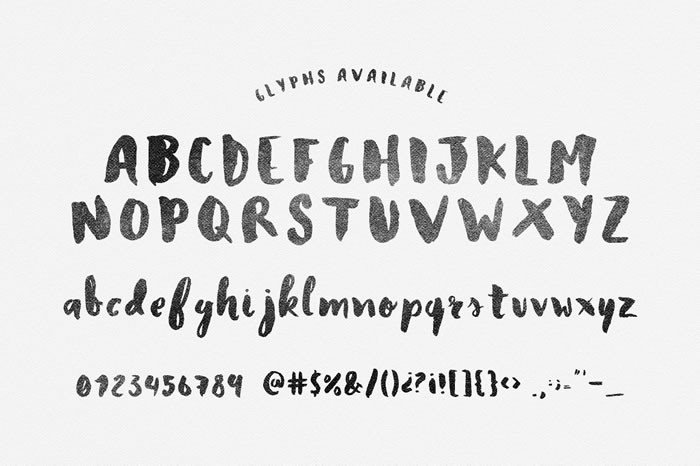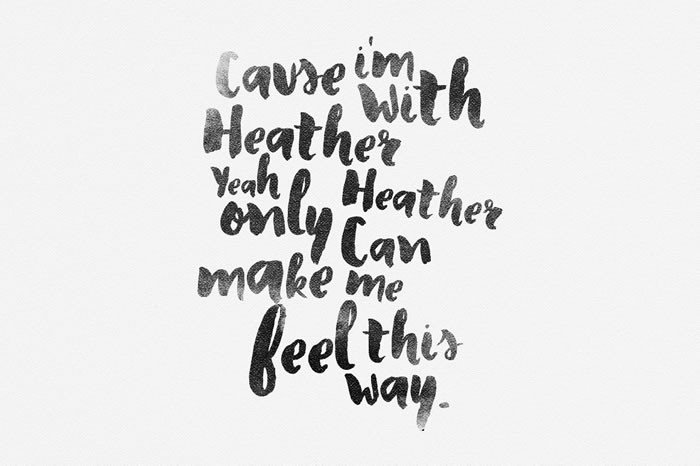
Discover the Charm of Heather Font: A Handmade Typeface for Creative Projects
Are you tired of using generic, overused fonts in your designs? Look no further than Heather Font, a beautiful handmade typeface that adds a touch of elegance and sophistication to any project. With its natural, effortless charm, Heather Font is perfect for a wide range of applications, from logos and invitations to posters, quotes, letterheads, and more.
What Makes Heather Font Special?
Heather Font is a unique, handmade typeface that stands out from the crowd. Its creator has poured their heart and soul into crafting a font that is both visually appealing and highly versatile. With a ton of glyphs included, Heather Font offers endless possibilities for creative expression.
Whether you’re a designer, crafter, or DIY enthusiast, Heather Font is an excellent choice for any project that requires a personal touch. Its handmade nature gives it a warm, organic feel that’s perfect for:
- Logos: Create a lasting impression with a custom logo that showcases your brand’s personality.
- Invitations: Set the tone for a special occasion with beautifully designed invitations that reflect your style.
- Posters: Grab attention with eye-catching posters that feature Heather Font’s elegant, cursive script.
- Quotes: Add a touch of inspiration to your designs with beautifully typeset quotes that showcase Heather Font’s charm.
- Letterheads: Elevate your business correspondence with custom letterheads that feature Heather Font’s sophisticated style.
- Birthdays and more: Make any celebration special with custom designs that incorporate Heather Font’s playful, yet elegant vibe.
The Benefits of Using Heather Font
So, why choose Heather Font for your next project? Here are just a few benefits of using this amazing handmade typeface:
- Unique and distinctive: Heather Font is a one-of-a-kind typeface that will set your designs apart from the rest.
- Highly versatile: With a wide range of glyphs and applications, Heather Font can be used for everything from logos to posters and more.
- Elegant and sophisticated: Heather Font’s natural, effortless charm adds a touch of elegance and sophistication to any design.
- Easy to use: Heather Font is designed to be user-friendly, making it easy to incorporate into your workflow.
Tips for Getting the Most Out of Heather Font
To truly get the most out of Heather Font, here are a few tips to keep in mind:
- Experiment with different sizes and colors: Heather Font looks great in a variety of sizes and colors, so don’t be afraid to get creative.
- Pair it with other fonts: Heather Font pairs beautifully with other fonts, so try combining it with different typefaces to create a unique look.
- Use it for headlines and body text: Heather Font is versatile enough to be used for both headlines and body text, making it a great choice for a wide range of applications.
| Font Name | Heather Font |
| Author | Noe Araujo |
In conclusion, Heather Font is a beautiful handmade typeface that offers a unique and distinctive way to add a personal touch to your designs. With its natural, effortless charm and highly versatile nature, Heather Font is perfect for a wide range of applications, from logos and invitations to posters, quotes, letterheads, and more. So why wait? Download Heather Font today and start creating stunning designs that showcase your creativity and style.
Whether you’re a seasoned designer or a DIY enthusiast, Heather Font is sure to become a favorite in your collection. Its handmade nature and elegant, sophisticated style make it the perfect choice for anyone looking to add a touch of charm and personality to their designs.
So go ahead, get creative, and enjoy the amazing, natural, and handmade beauty of Heather Font!